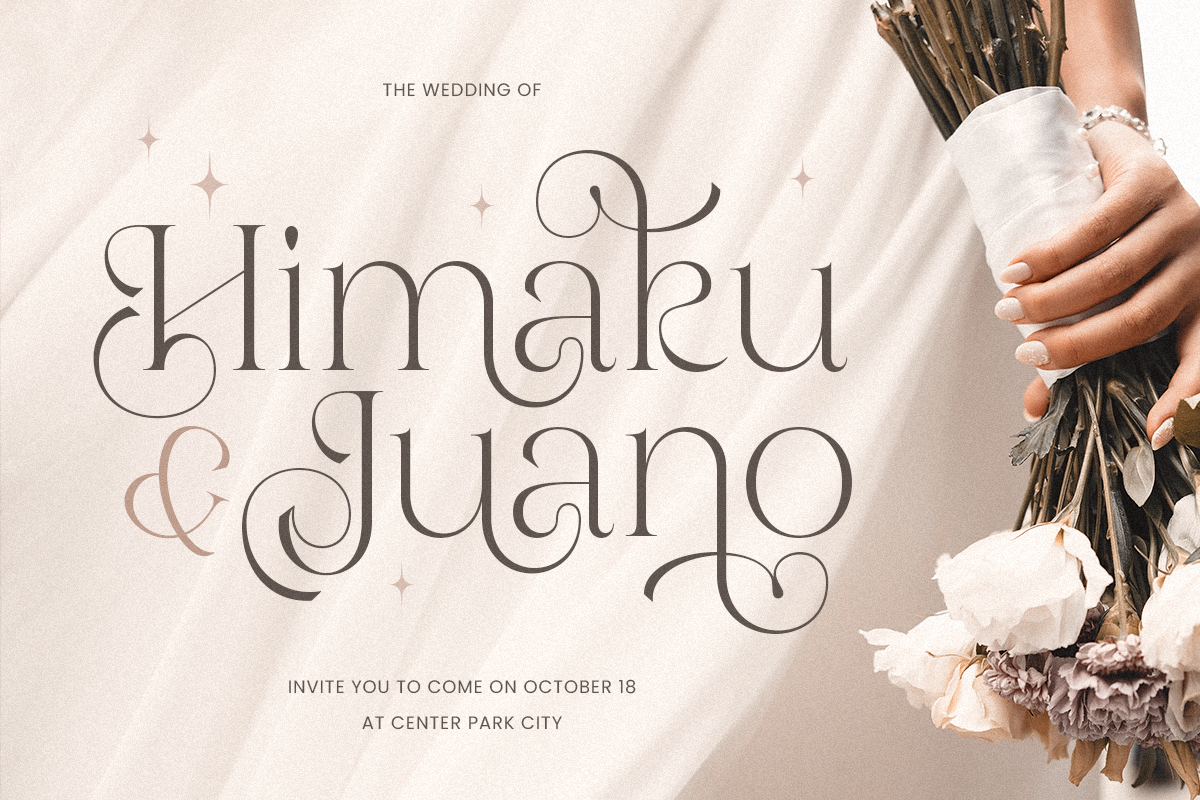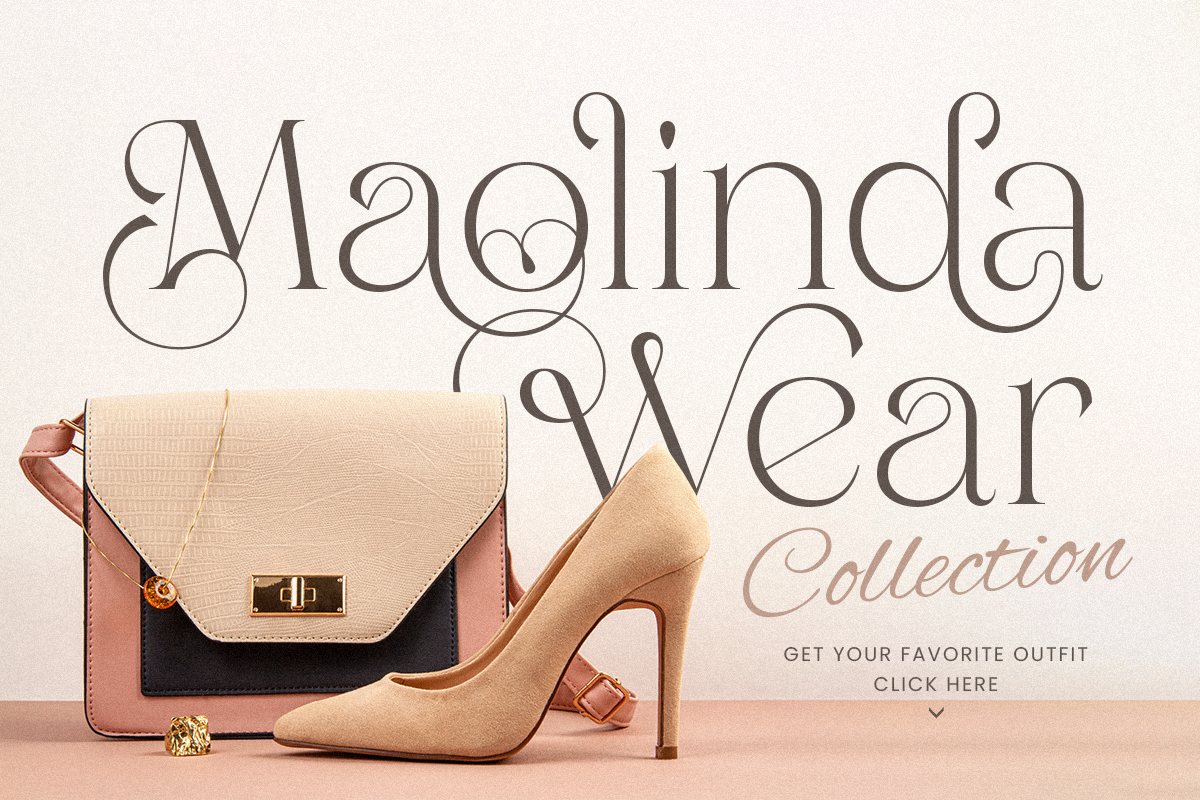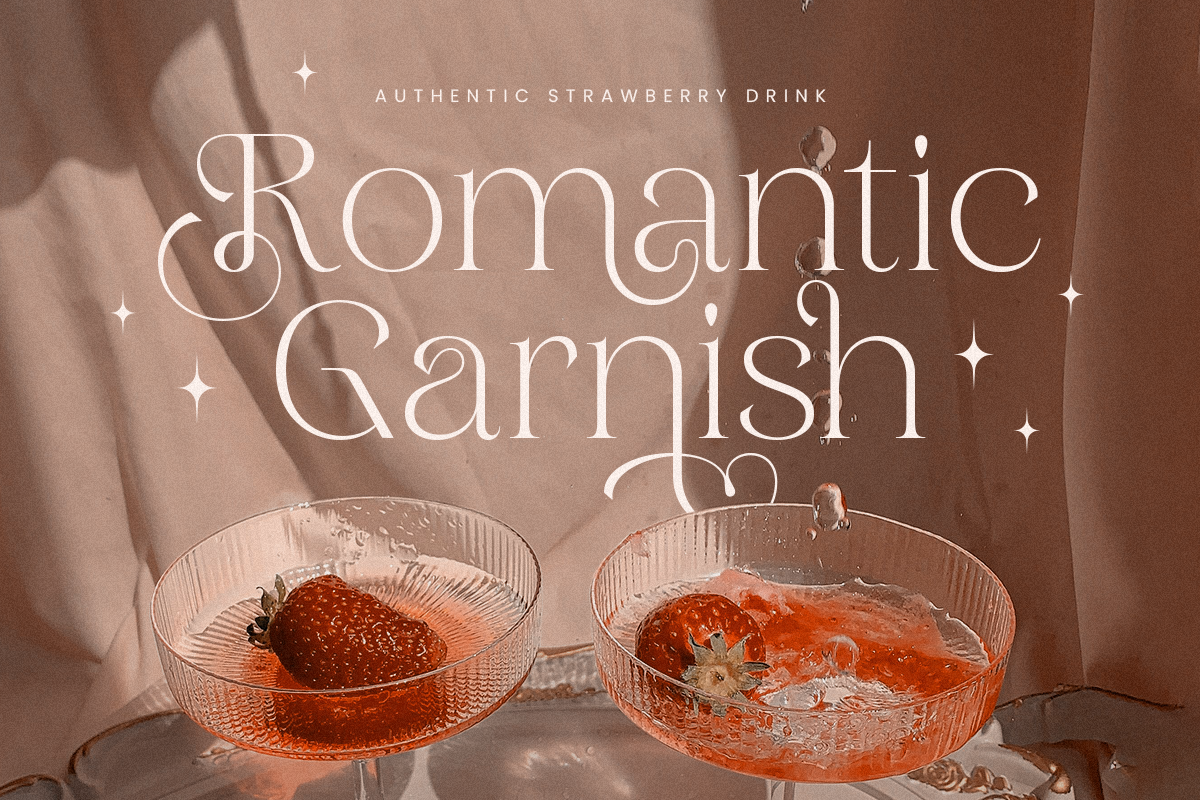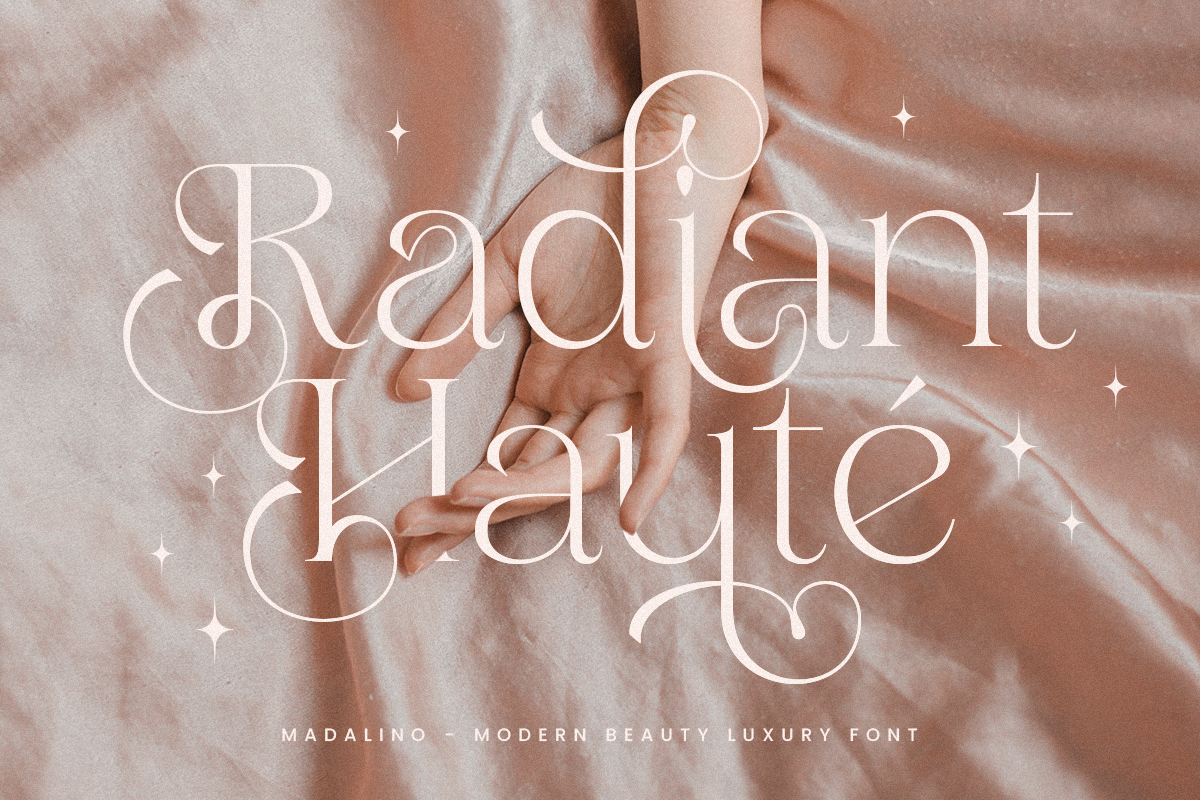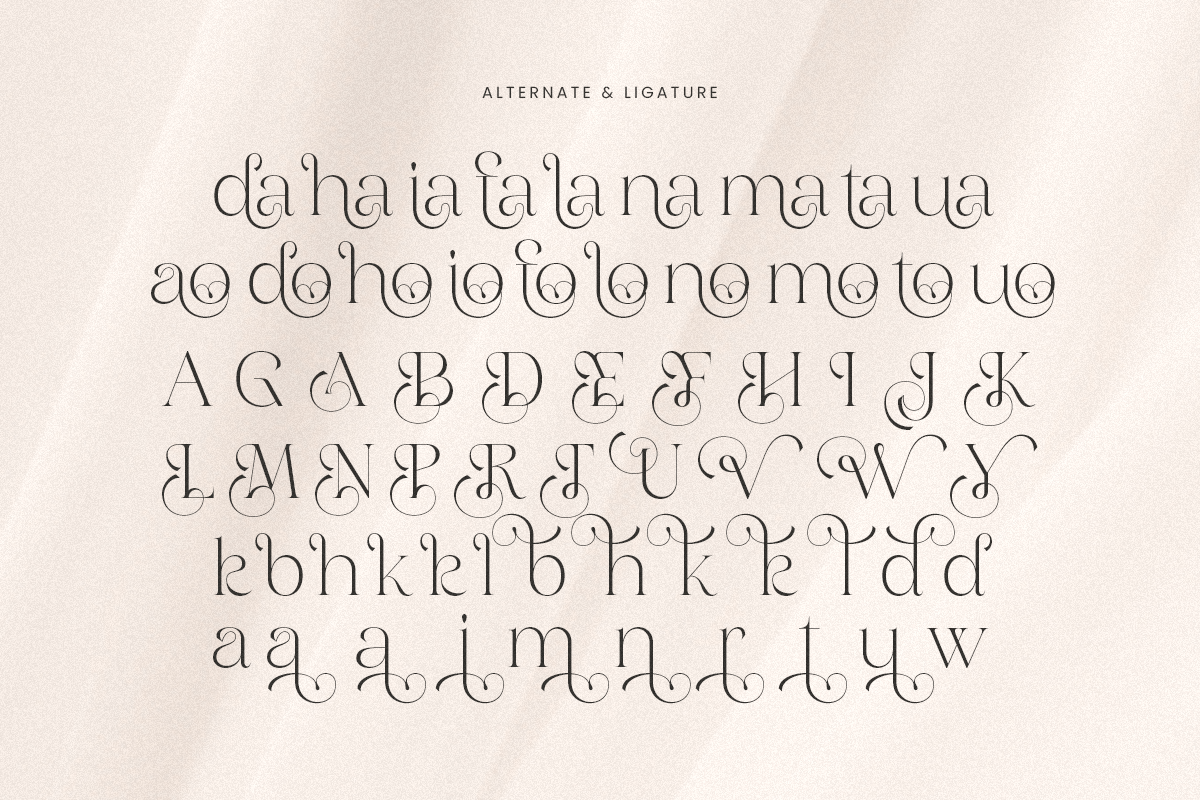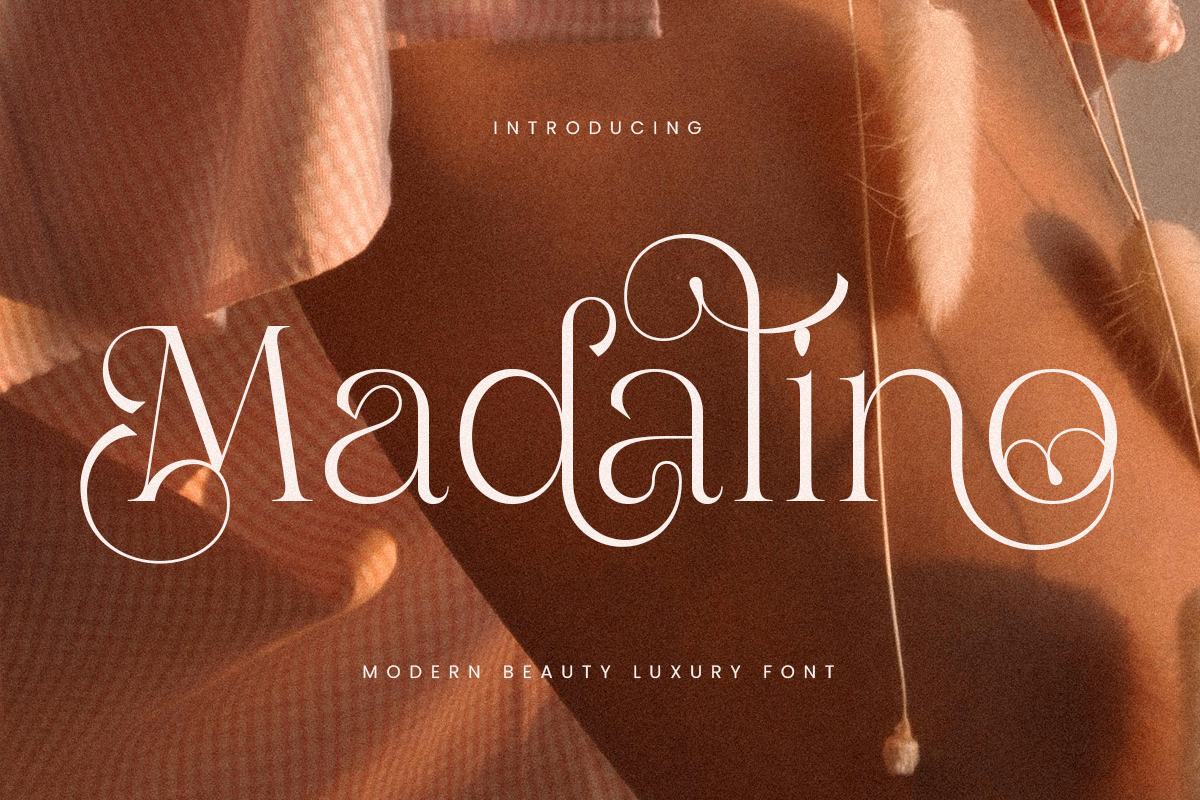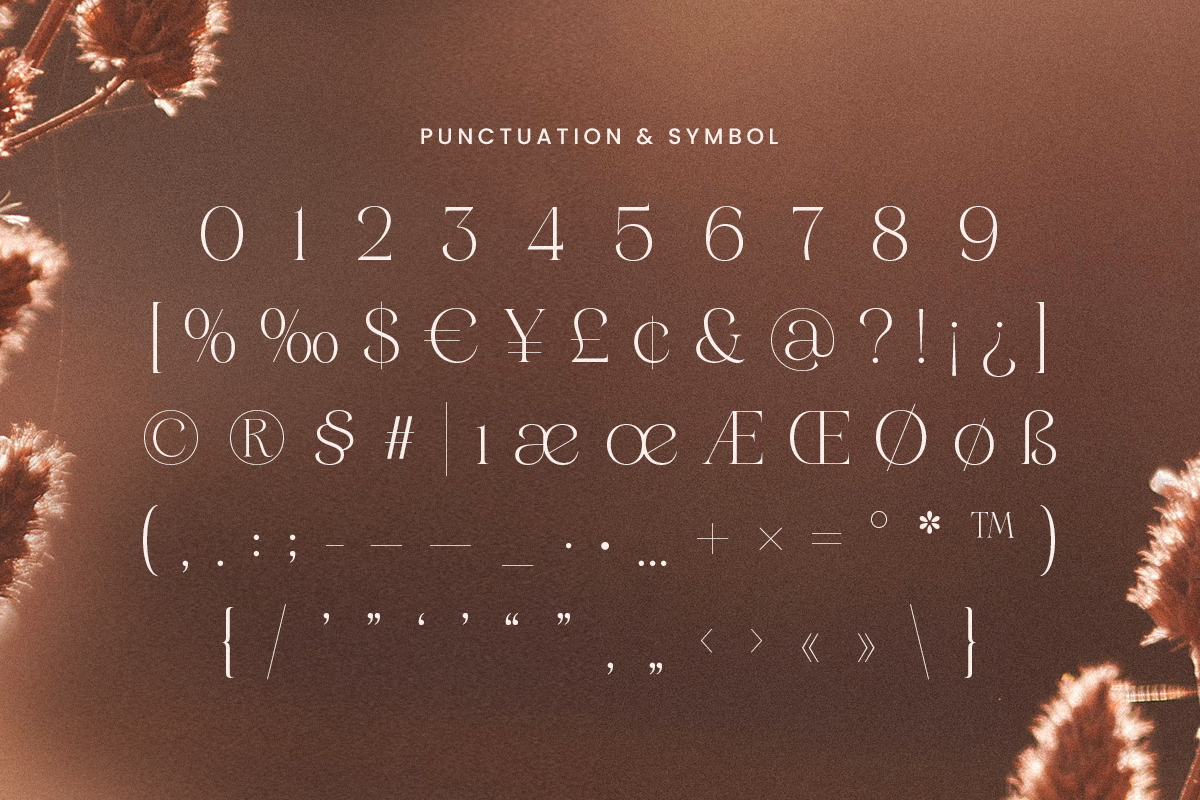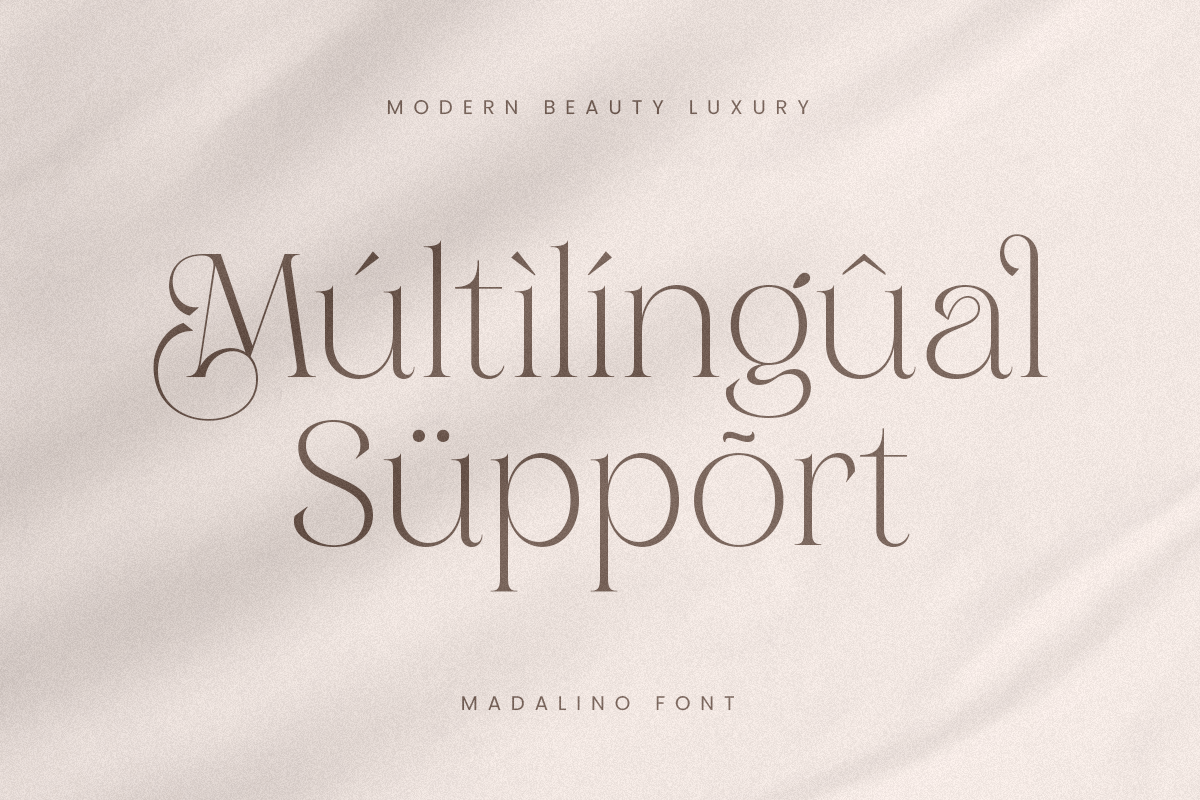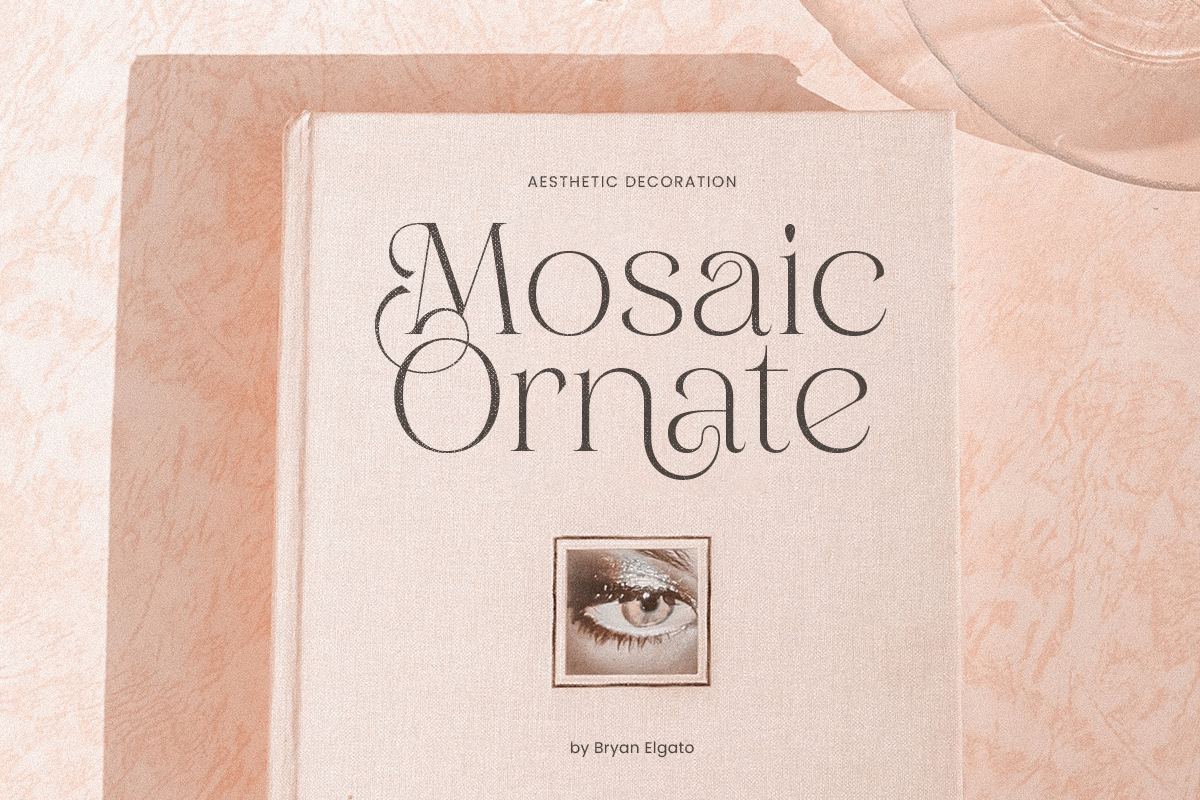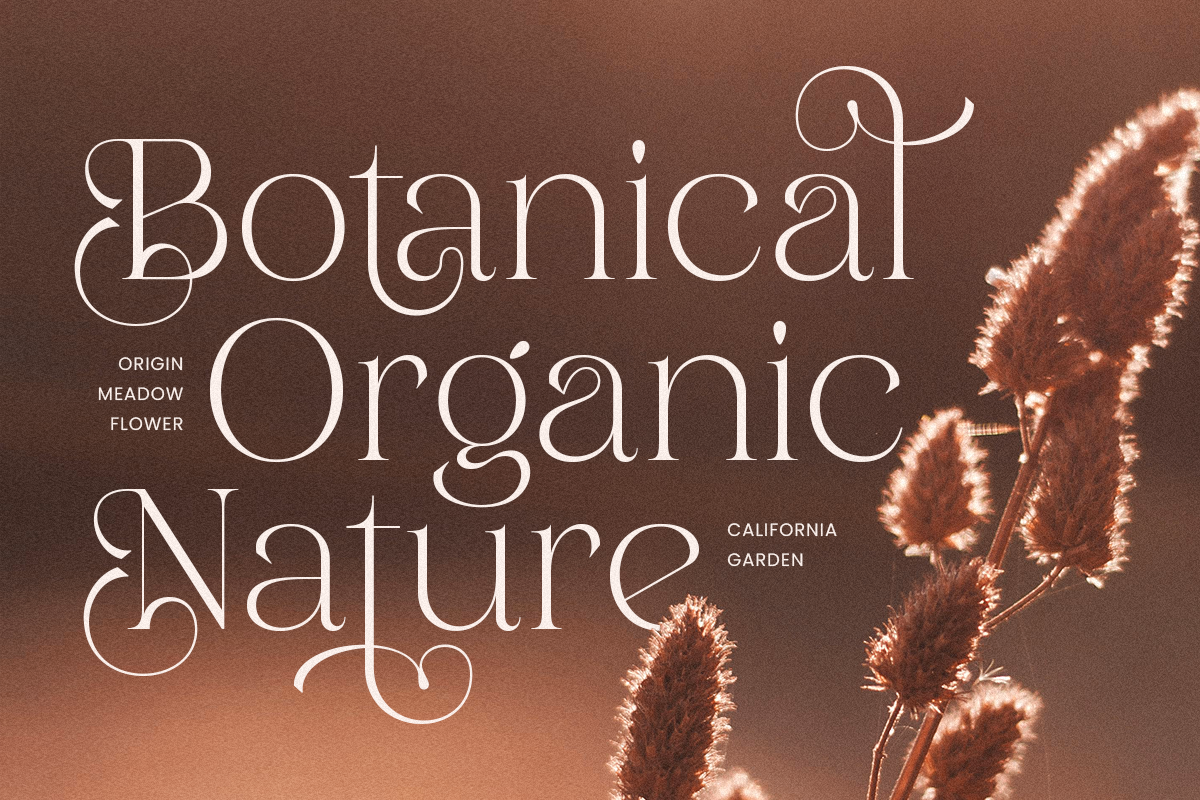
Madalino - Modern Beauty Luxury Font
A Fusion of Modern Elegance
Madalino is a font designed to exude modern beauty and luxury in every curve. Inspired by the elegance of high fashion and contemporary design, its smooth letterforms deliver sophistication and charm. Madalino is perfect for projects that demand an upscale and polished aesthetic.
Ideal for Luxury Creations
This font is the ultimate choice for creating stunning logos, wedding invitations, branding materials, and editorials. Its versatility allows it to shine in both bold headlines and intricate design details, making it an essential tool for designers aiming to captivate their audience.
Craft Timeless Impressions
Madalino brings your creations to life with its luxurious and modern style. Whether it’s for high-end branding or personal projects, this font ensures your designs leave an unforgettable impression, radiating beauty and sophistication.
Madalino Modern Beauty Luxury Font Features:
- Alternates & Ligature Characters Ready
- Punctuation, Number, and Symbol
- Opentype Features
Multilingual Characters available for:
Afrikaans, Albanian, Asu, Basque, Bemba, Bena, Breton, Chiga, Cornish, Dutch, English, Estonian, Filipino, Finnish, Friulian, Galician, German, Gusii, Indonesian, Irish, Italian, Kabuverdianu, Kalenjin, Kinyarwanda, Luo, Luxembourgish, Luyia, Machame, Makhuwa-Meetto, Makonde, Malagasy, Manx, Morisyen, North Ndebele, Nyankole, Oromo, Portuguese, Quechua, Romansh, Rombo, Rundi, Rwa, Samburu, Sango, Sangu, Scottish Gaelic, Sena, Shambala, Shona, Soga, Somali, Spanish, Swahili, Swedish, Swiss.